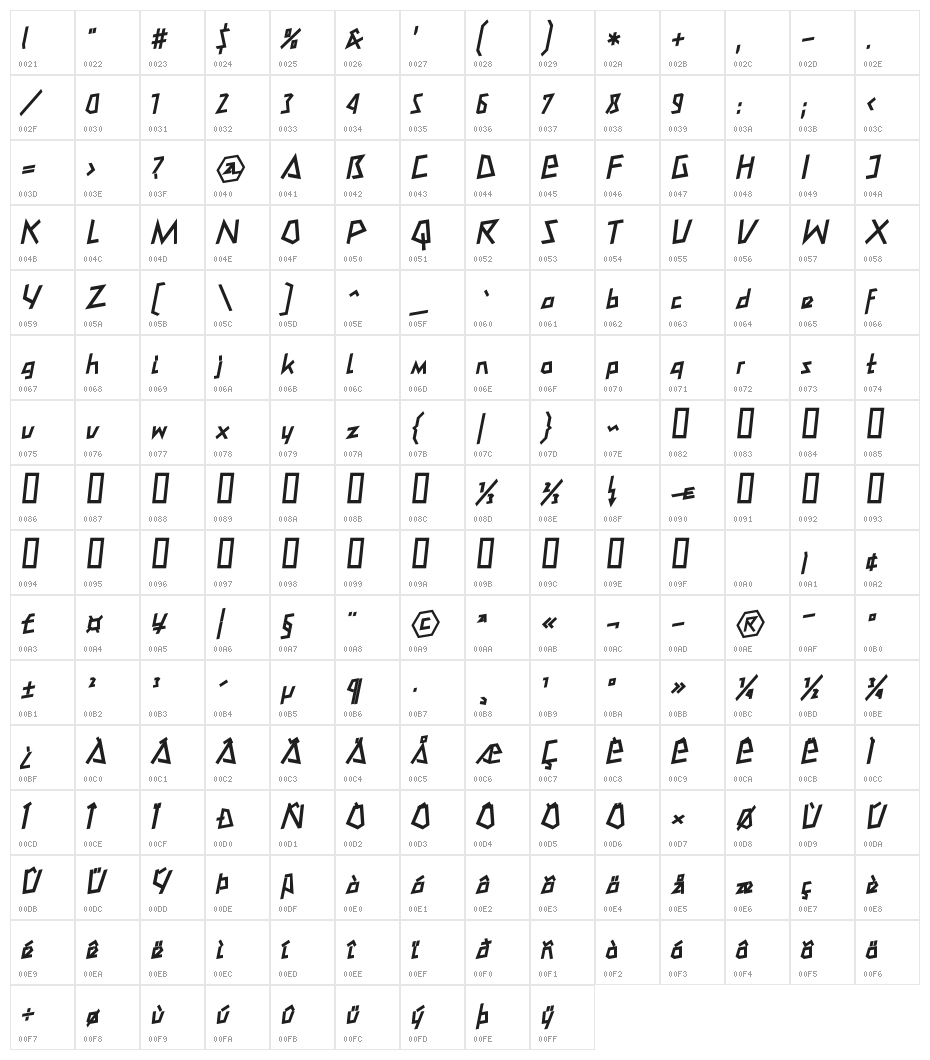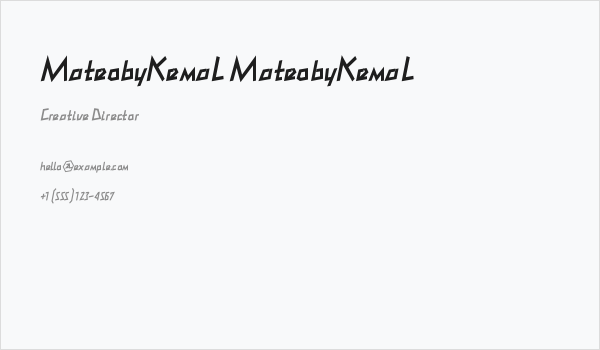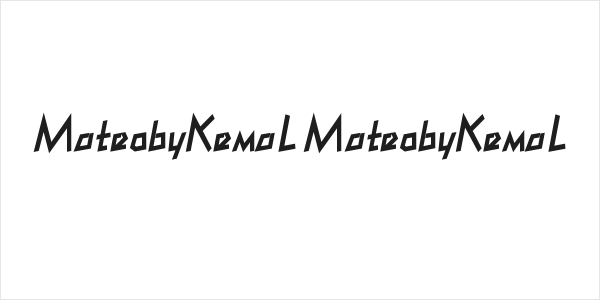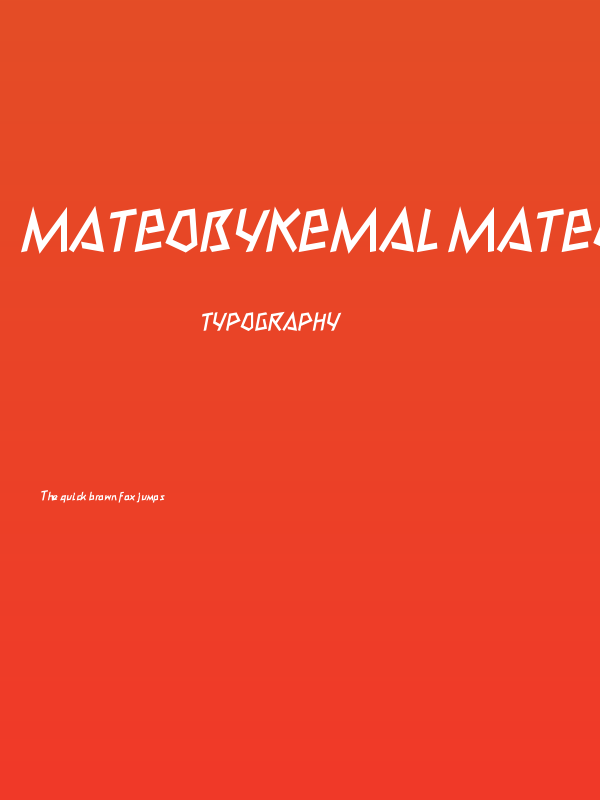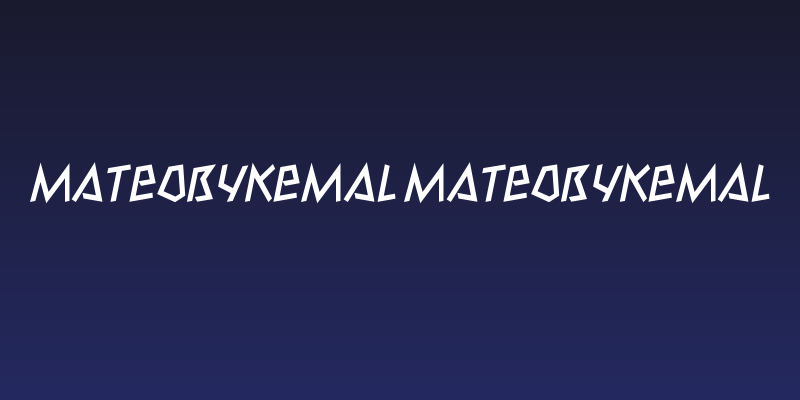
MateobyKemaL Font
MateobyKemaL Description
This font features a dynamic and angular design, characterized by sharp edges and a forward-leaning stance that conveys a sense of motion and energy. The uppercase letters are bold and striking, while the lowercase letters maintain the same angular style, offering a cohesive look. Numbers and special characters are designed with the same attention to detail, ensuring consistency across all glyphs. The font's unique style makes it stand out, making it ideal for projects that require a modern and edgy aesthetic.
| Proposed Projects | Ideal for branding, posters, and modern digital media projects that require a bold statement. |